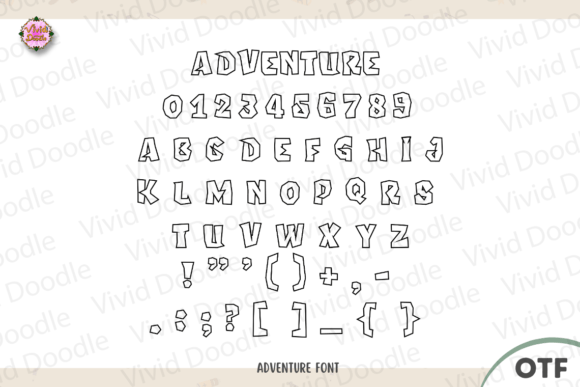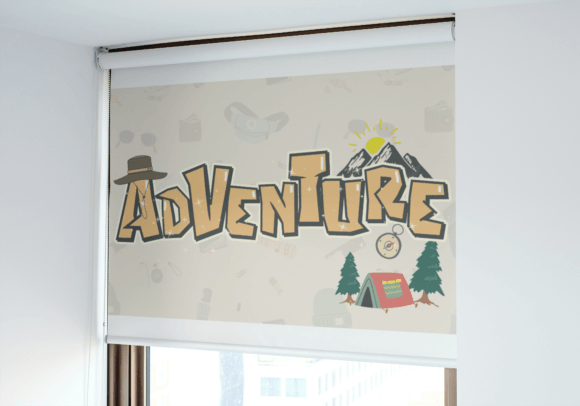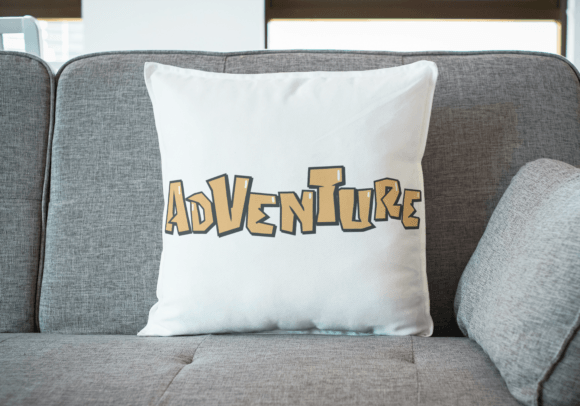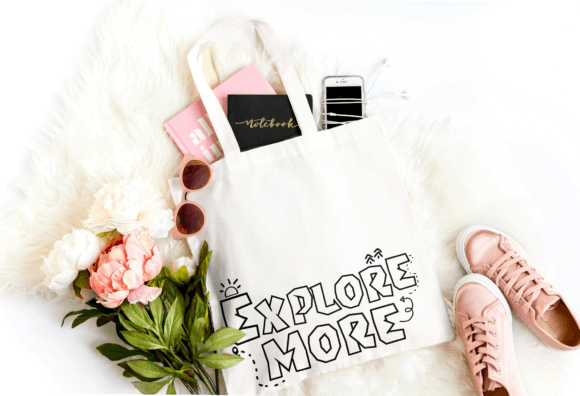
Unlock Your Creative Potential with Adventure Font
Have you ever been in the middle of a design project, and suddenly, it hits you – the font you’ve been using just isn’t cutting it? You’re trying to convey a sense of wanderlust and adventure, but the font looks dull and uninspiring. I recall a similar experience while working on a travel brochure project. My client wanted a font that would capture the essence of exploration and freedom. After hours of searching, I stumbled upon Adventure Font, and it completely transformed my design.
What Makes Adventure Font Special?
Adventure Font is an adventurous and versatile typeface designed specifically for travel quotes, camping ideas, travel themes, vacation time, and various other designs. This font features an alphabet crafted with a sense of exploration and wanderlust, capturing the spirit of adventure. Each character is carefully designed to elevate your designs with a bold allure, turning every project into a visually engaging and creatively inspired journey.
An Honest Review of Adventure Font
- ✨ Versatility: Adventure Font is perfect for a wide range of design projects, from titles and headers to lettering, posters, greeting cards, invitations, banners, and more.
- ✅ Unique Character: Each character is designed with a sense of exploration and wanderlust, adding a touch of adventure to your designs.
- 💡 Ease of Use: The font is easy to read and works well in both digital and print formats.
⚠️ While Adventure Font is incredibly versatile, it’s essential to note that it may not be the best fit for very formal or traditional designs. Additionally, some users have reported that the font can be a bit tricky to read at very small sizes.
🤔 One thing to keep in mind is that Adventure Font is a relatively new font, and as such, it may not have as many online resources or tutorials as more established fonts.
The Backstory of Adventure Font
Adventure Font was designed by a team of typographers who are passionate about travel and exploration. The font was inspired by vintage travel posters and maps, with a goal of capturing the sense of adventure and freedom that comes with exploring new places. The designers wanted to create a font that would be perfect for travel quotes, camping ideas, and other designs that evoke a sense of wanderlust.
| Font Name | Adventure Font |
| Author | VividDoodle |
Q: What is Adventure Font?
A: Adventure Font is an adventurous and versatile typeface designed specifically for travel quotes, camping ideas, travel themes, vacation time, and various other designs.
Q: Is Adventure Font easy to read?
A: Yes, Adventure Font is designed to be easy to read, even at small sizes. However, it’s recommended to use the font at larger sizes for optimal readability.